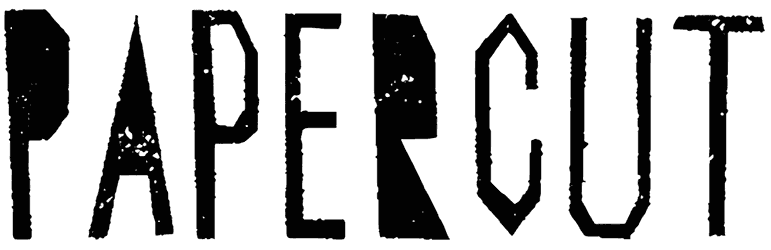
Papercut Font
Designed byAllen Chiu
Papercut is a cut-out font with a rough and dirty appearance and the ability to strike the ideal balance between rawness and refinement. Although it does not have lowercase letters, it is a great option for producing Halloween flyers, invitations, and other spooky graphics because of its two sets of capital letters.